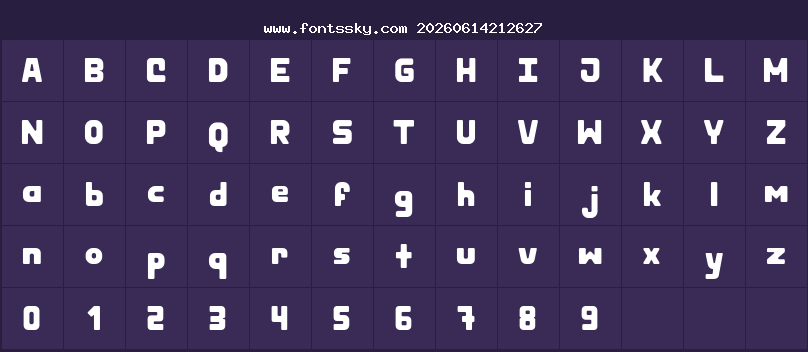
CHIDO Preview
• Font Name: CHIDO
• Full Font Name: CHIDO Regular
About CHIDO.otf
CHIDO.otf is a modern, elegant sans-serif font designed for ultimate readability and visual harmony. Perfect for branding, headlines, web design, and print materials.